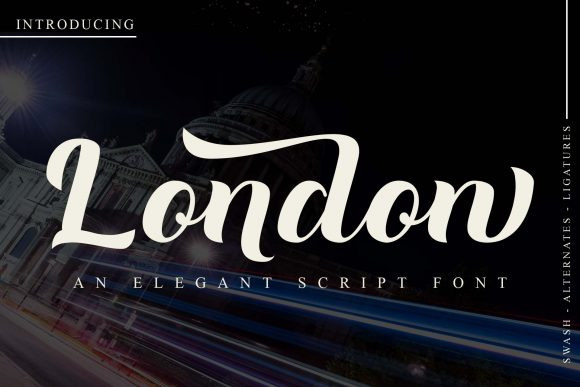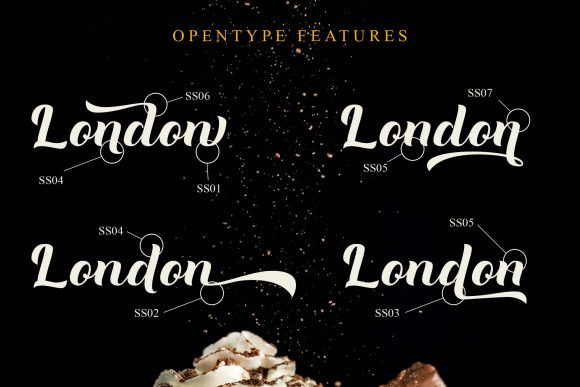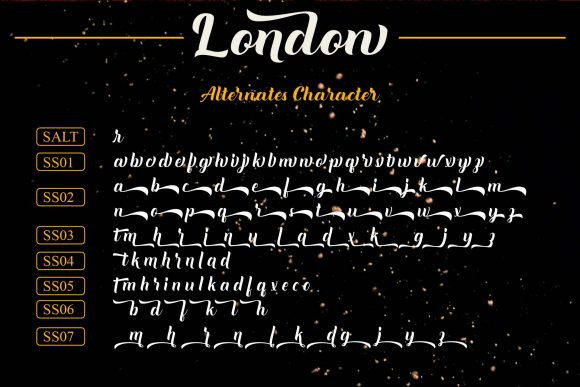
London Font
London is a gorgeous and bold handwritten font, crafted to give your headlines and logotype projects a stylish touch. This font reads as strong, confident, and dynamic and can add tons of nostalgic character to your designs. London is PUA encoded which means you can access all glyphs and swashes with ease!